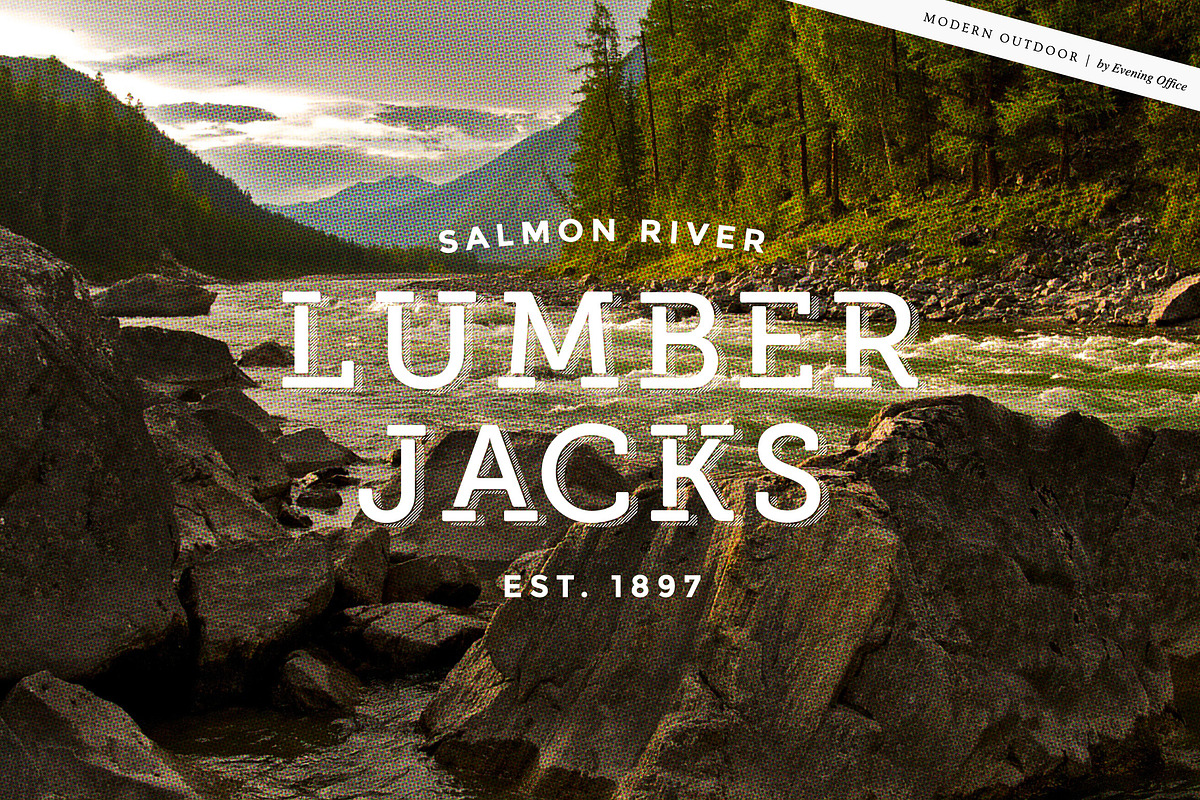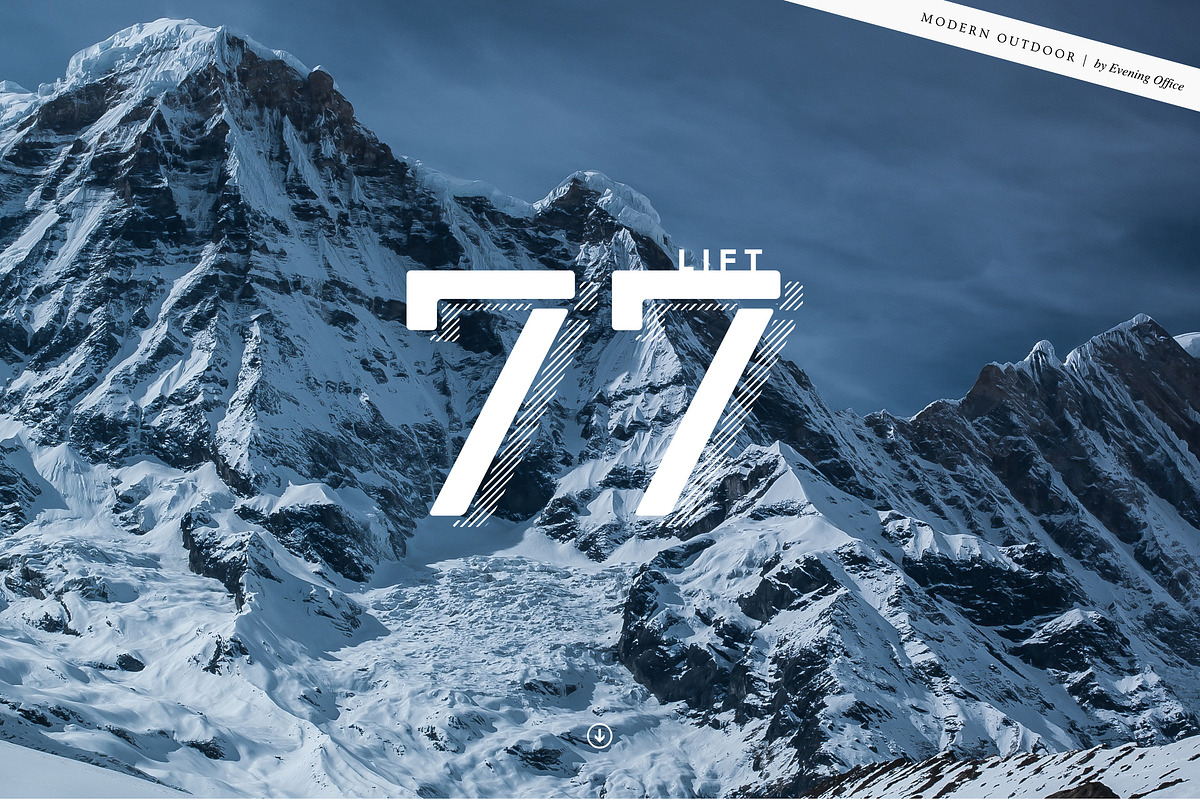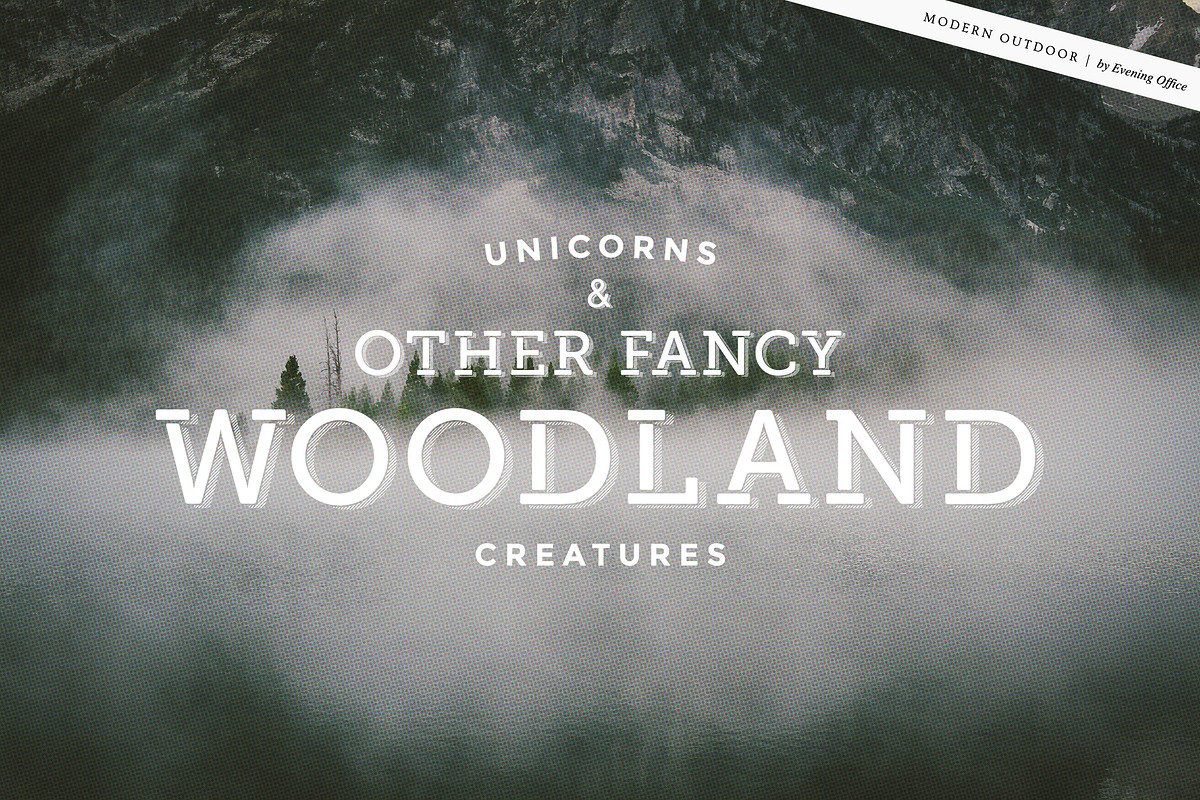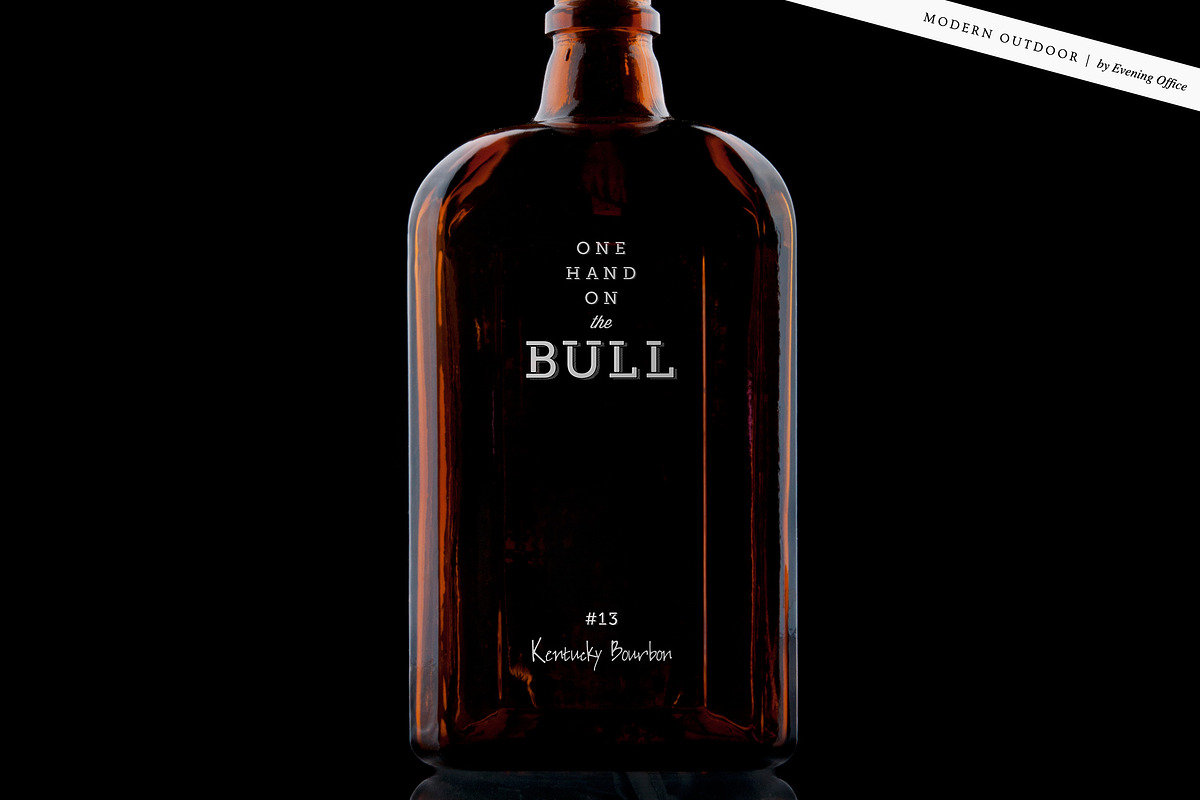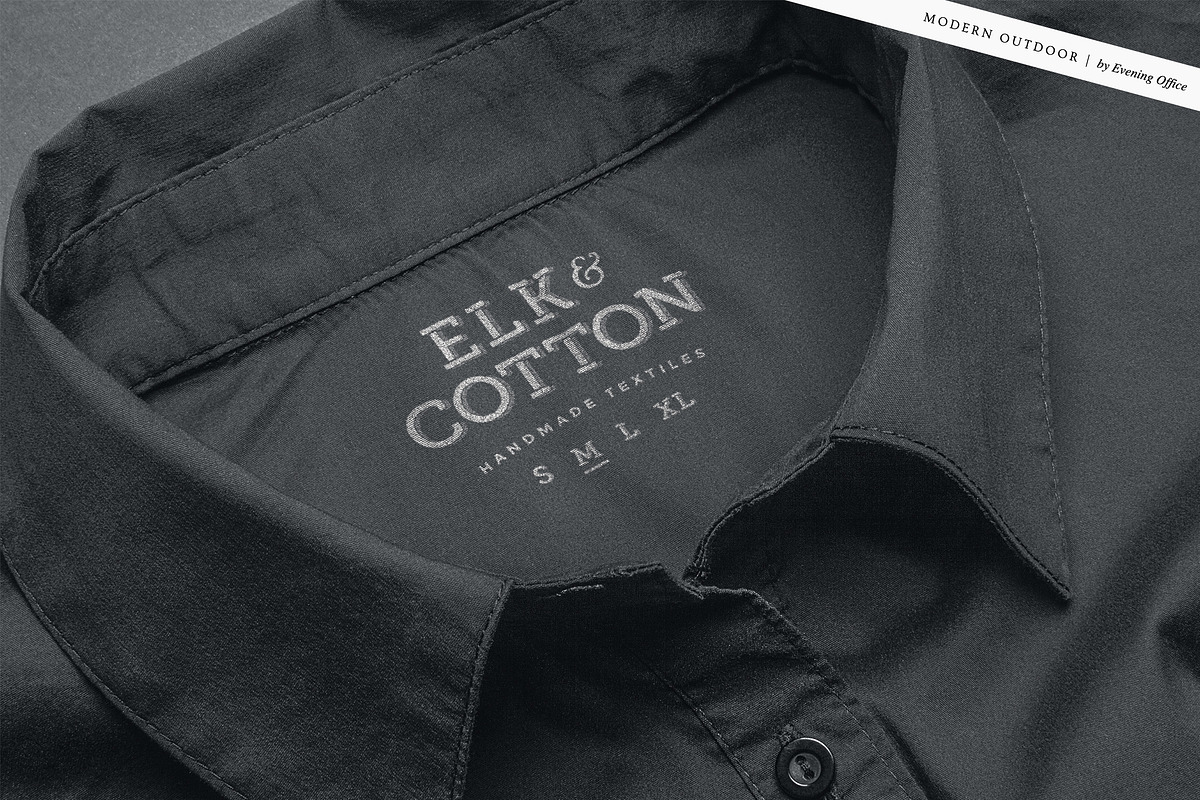
Modern Outdoor | Font
Modern Outdoor | Font by Type Cargo is a font selected for branding, posters, packaging, typography.
Why Modern Outdoor | Font is worth a look
Modern Outdoor | Font by Type Cargo fits naturally into Branding, posters, packaging, typography.